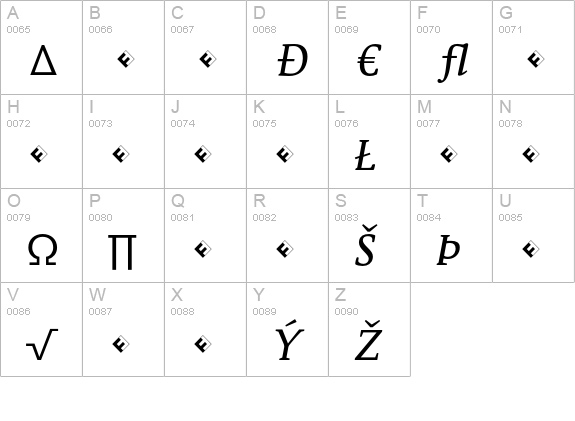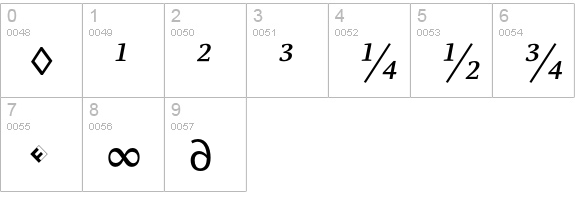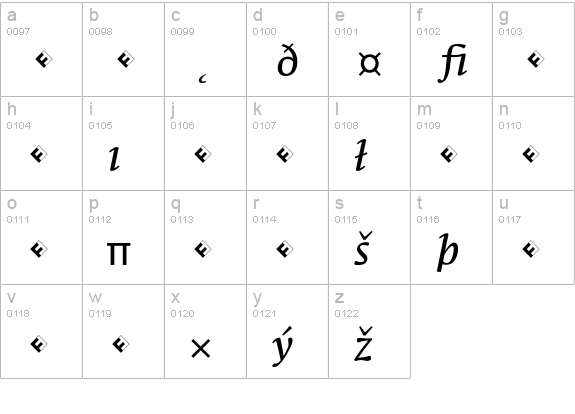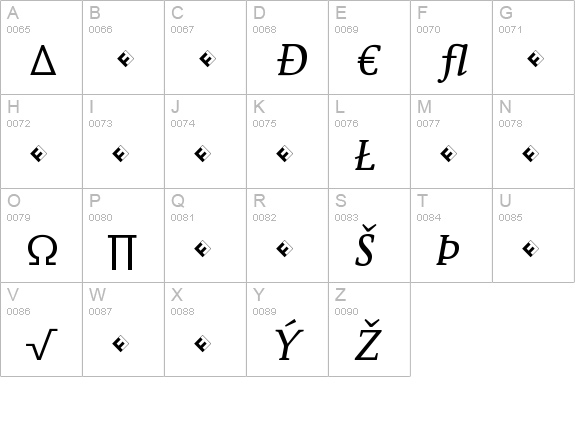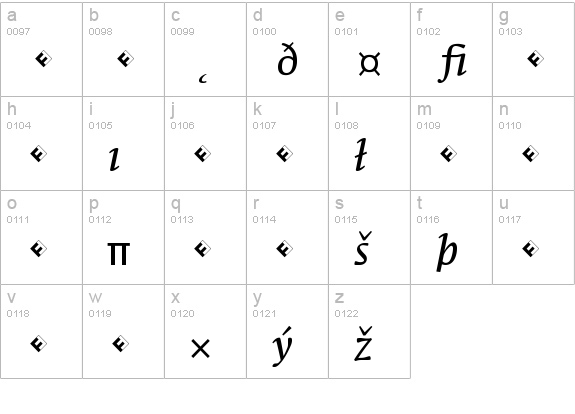
Parable-RegularItalicExpert Font Details
Parable-RegularItalicExpert font is a captivating and elegant typeface that draws inspiration from traditional calligraphy. Its expertly crafted letterforms exude a sense of sophistication and grace, making it perfect for adding a touch of refinement to any design project. The italicized slant of Parable-RegularItalicExpert font adds a dynamic flair, creating a sense of movement and fluidity. Each character is meticulously designed with delicate curves and precise strokes, resulting in a visually stunning display that is both pleasing to the eye and easy to read. This font is ideal for a wide range of applications, including branding, packaging, invitations, and editorial design. Its versatility allows it to effortlessly adapt to any layout or concept, while its expertly kerned spacing ensures a harmonious and balanced composition. What sets Parable-RegularItalicExpert font apart is not only its exceptional design but also its availability. Unlike other premium fonts, Parable-RegularItalicExpert font is freely available to download at FontsMarket.com. This means that you can enhance your projects with this exquisite typeface without any financial constraints. Whether you are a professional designer looking to elevate your creations or a casual user in need of a stylish and unique font, Parable-RegularItalicExpert font is the perfect choice. Its timeless appeal and effortless beauty will captivate your audience and leave a lasting impression. Download it today at FontsMarket.com and experience the freedom of creativity that comes with this exceptional font.